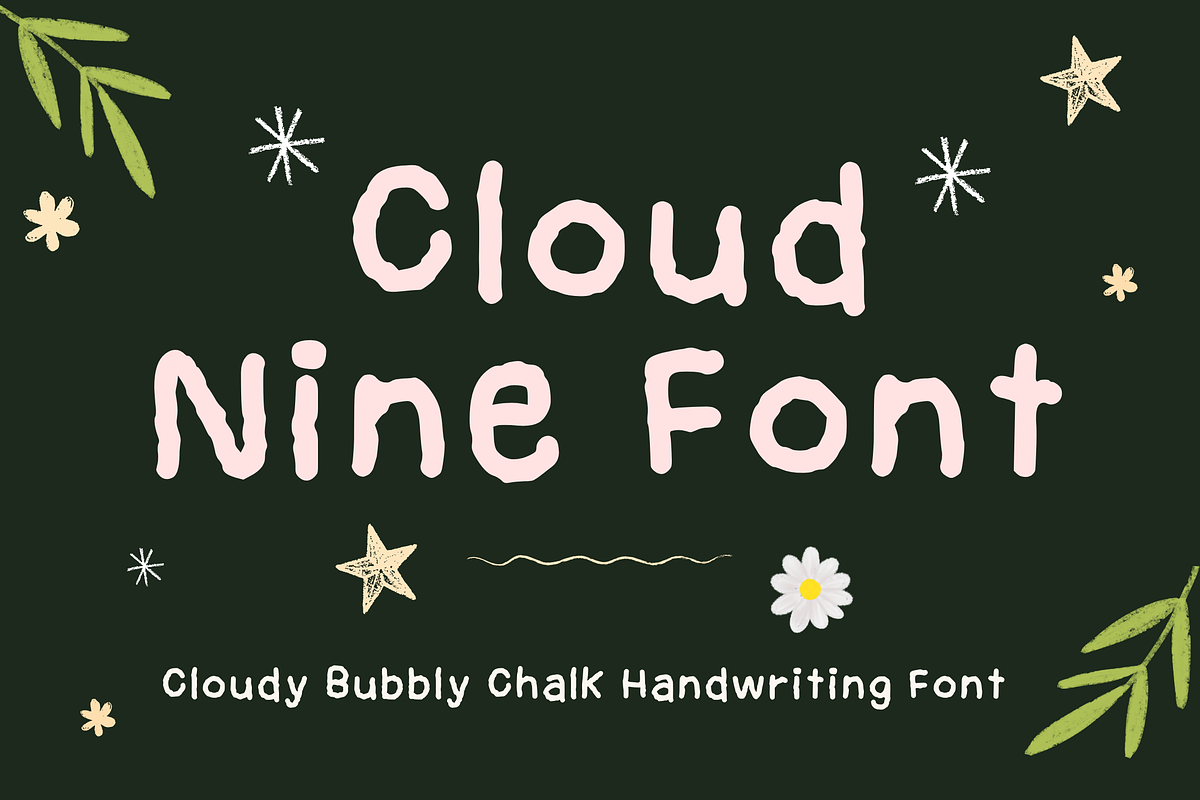
Cloud Nine Handwritten Chalk Font Free Download is a playful and textured typeface that mimics the charm of real chalk on a blackboard. Perfect for classroom materials, café menus, DIY projects, kid-themed designs, and creative social media posts, this font brings a nostalgic, handmade vibe to any layout.
Its handwritten style is both fun and legible, offering a personal touch that’s great for informal branding and expressive typography. Whether you're designing educational graphics or crafting chalkboard signs, Cloud Nine adds whimsy and authenticity. Cloud Nine Handwritten Chalk Font Free Download lets you try this delightful font for personal use before purchasing a commercial license.
Bring your ideas to life with Cloud Nine — the handwritten chalk font that feels fresh, fun, and full of personality.